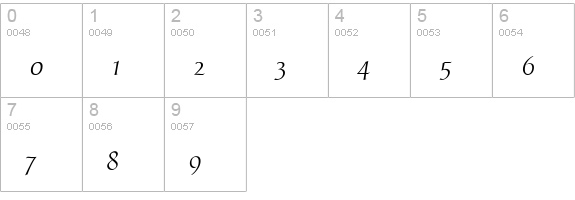
Arioso Font Details
Arioso font is a beautifully elegant typeface that exudes sophistication and charm. With its delicate curves and flowing lines, Arioso brings a sense of grace and refinement to any design project. This versatile font is perfect for adding a touch of class to invitations, logos, branding materials, and more. The best part? Arioso font is completely free to download at FontsMarket.com! Whether you're a professional designer looking to enhance your projects or a hobbyist seeking to elevate your creations, Arioso font is the perfect choice. Don't miss out on this opportunity to add a touch of elegance to your work with the exquisite Arioso font, available for free download now.